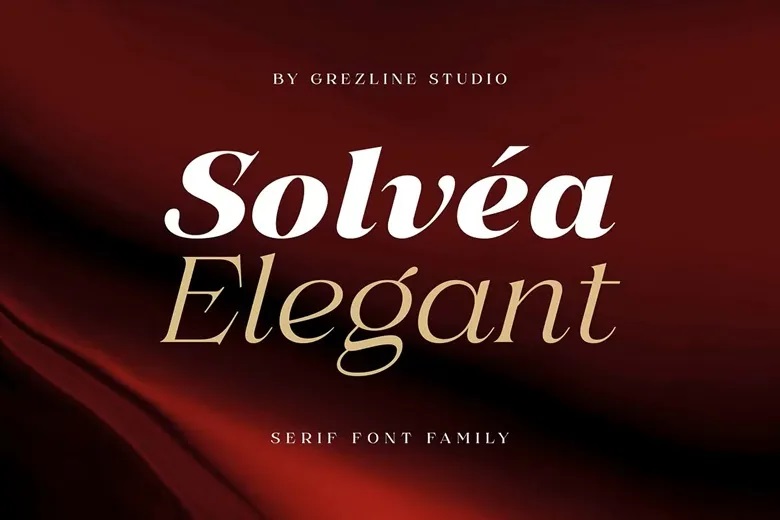
Solvéa Font
Solvea Font fits easily into many creative projects, whether you’re working on luxury branding, product packaging, digital layouts, or editorial designs. Its balanced look and smooth style help your work feel polished and visually appealing.
With its high-contrast design, Solvea stands out while staying clear and easy to read. Each letter is shaped to be both attractive and practical, making it a good choice for headlines, logos, and refined visual systems.
Solvéa Serif Font